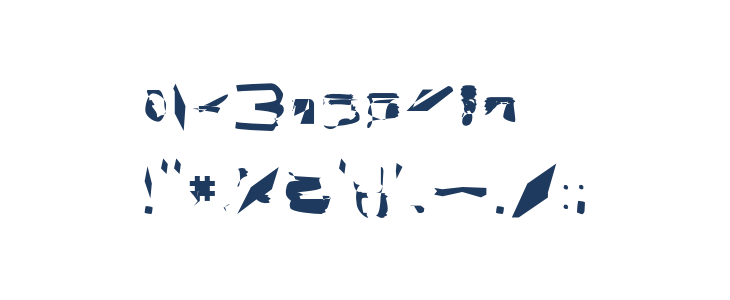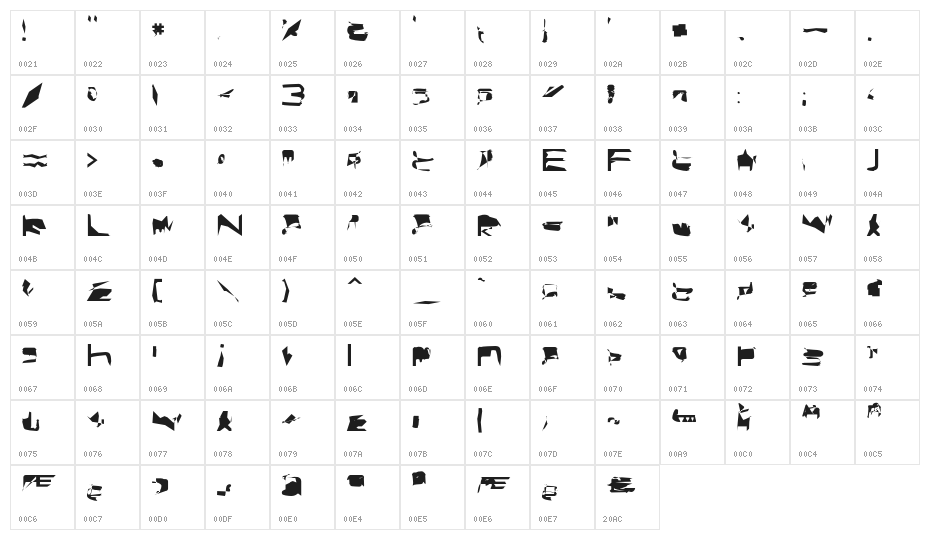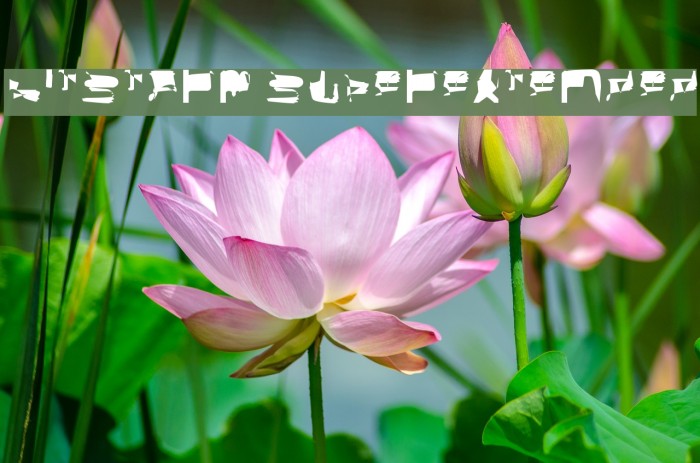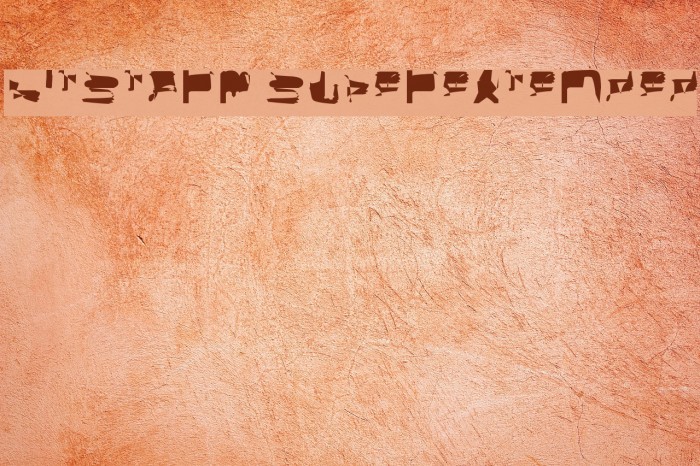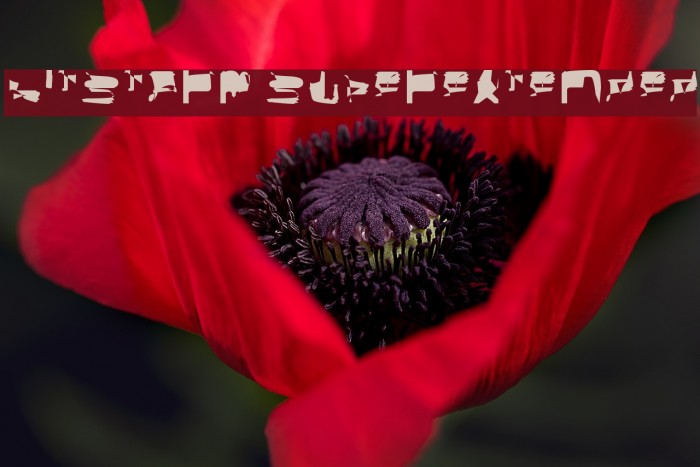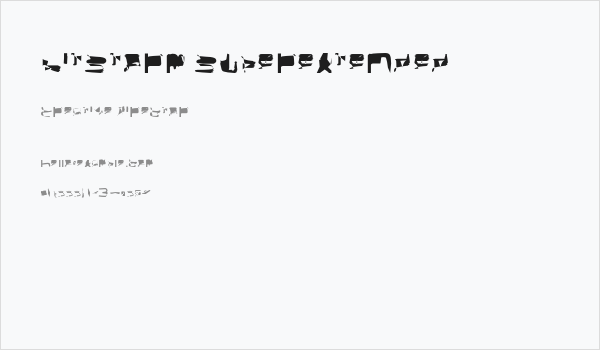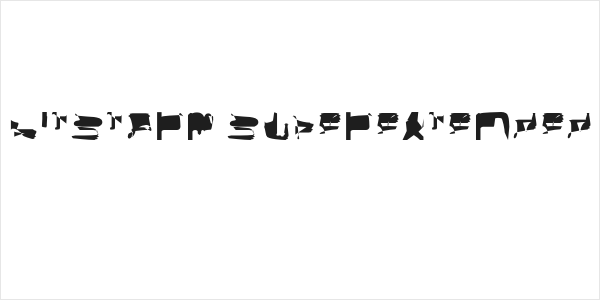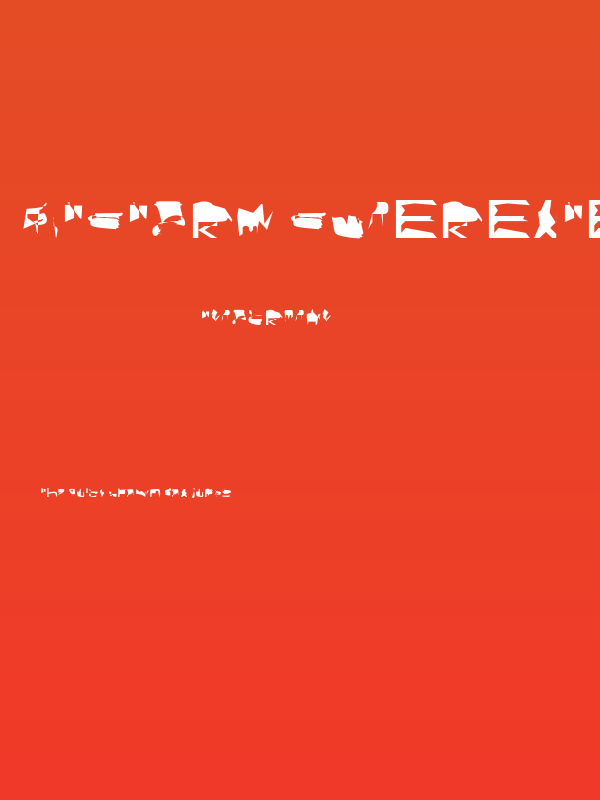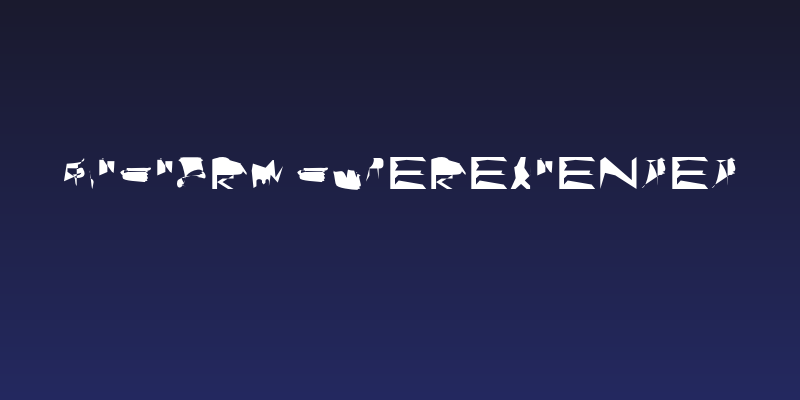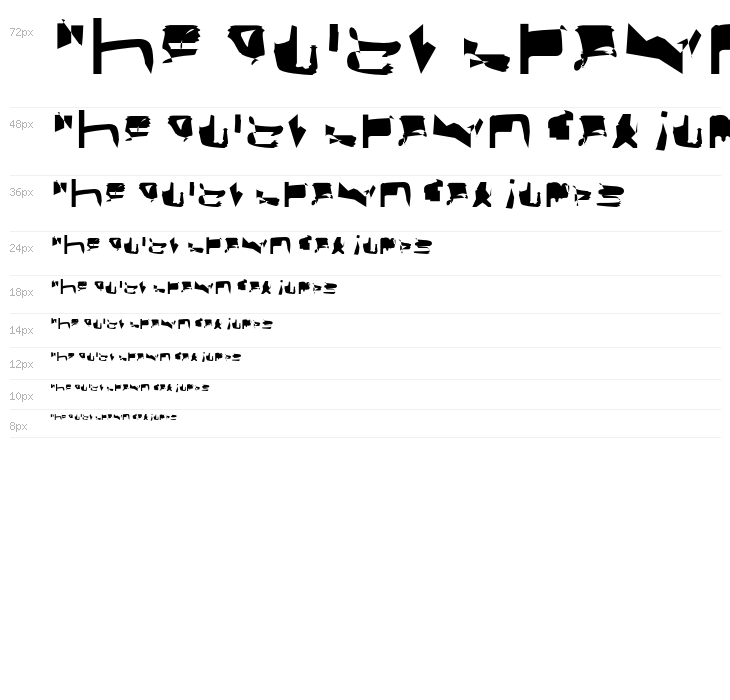
bitstorm superextended Font
bitstorm superextended Description
This font features a highly abstract and fragmented design, with characters appearing as if they are composed of torn paper or shattered glass. The strokes are bold and irregular, creating a dynamic and chaotic visual effect. Each letter is unique, with varying levels of fragmentation, making it a distinctive choice for projects that require a strong visual impact. The font's unconventional style may challenge readability, but it excels in creating an artistic and avant-garde aesthetic. Its sharp angles and broken forms suggest movement and energy, making it suitable for contemporary and edgy designs.
| Overall Style | Modern, Avant-garde |
| Use Case | Logos, Posters, Artistic projects |
| Proposed Projects | Ideal for album covers, modern art posters, edgy branding, and experimental design projects. |